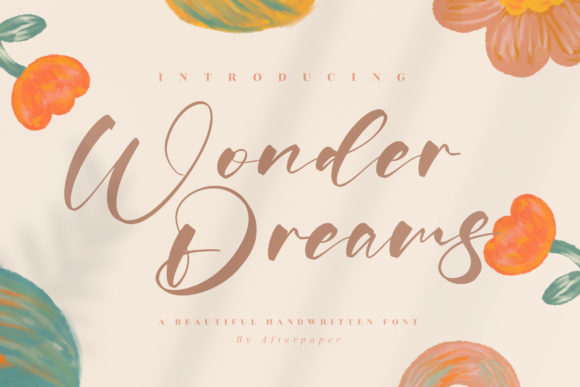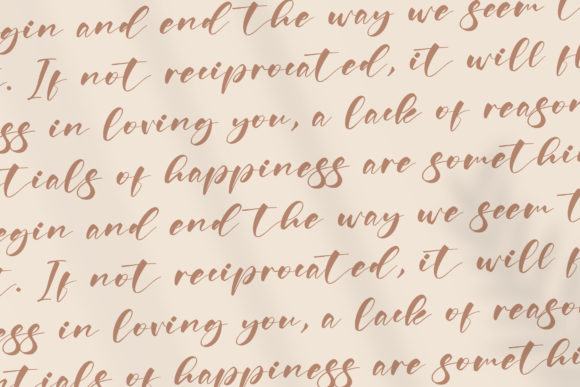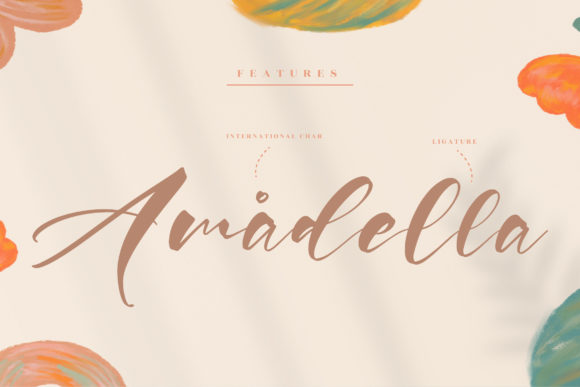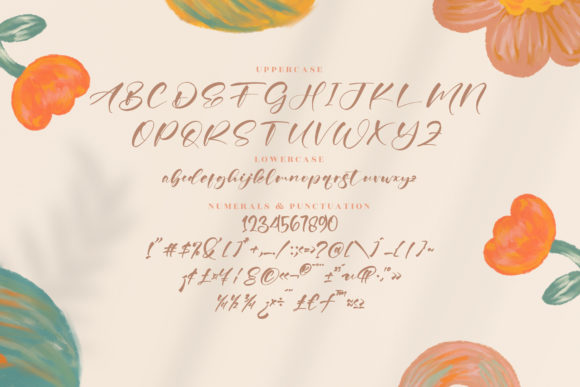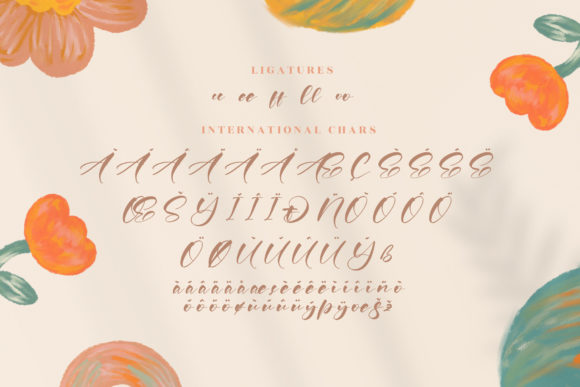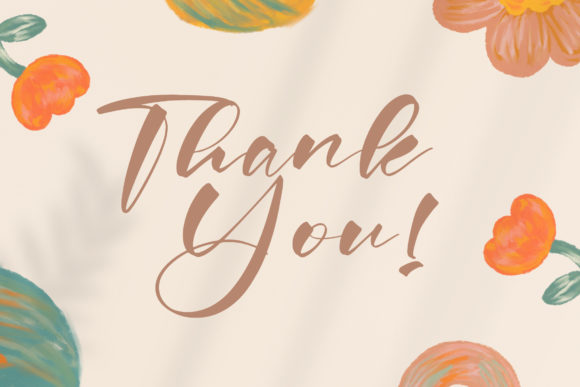
Wonder Dreams Font
About Wonder Dreams Font
Wonder Dreams is a distinct graceful script font. Fall for its ravishing style and use it to create gorgeous designs. This font is PUA encoded which means you can access all glyphs and swashes with ease!